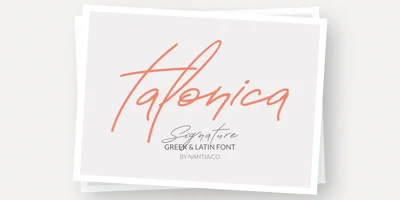
Talonica Font
Talonica Font is perfect for expressive design projects including editorial magazine layouts, contemporary art publications, creative agency branding, cultural festival promotions, modern literature covers, artistic portfolio presentations, innovative marketing campaigns, and dynamic social media graphics. This distinctive typeface excels in design studios, independent publishers, avant-garde fashion brands, creative workshops, and projects that celebrate artistic expression and contemporary visual communication.
What makes Talonica Font exciting is its sophisticated contemporary character that perfectly embodies the essence of modern artistic expression and editorial excellence. The font features refined letterforms with distinctive personality that reflect the balance between readability and creative flair found in premium publishing. Its thoughtful design elements capture the spirit of contemporary typography and cultural sophistication, making it perfect for projects that need to convey intelligence, creativity, and editorial authority. The carefully crafted character relationships create visual harmony while maintaining strong individual personality.
Talonica Font comes in multiple family variations including light, regular, medium, bold, and condensed styles. Each weight maintains the distinctive contemporary character while offering different levels of editorial presence and artistic impact. The font family includes expressive alternates, editorial ligatures, and contemporary variations that provide designers with comprehensive options for creating truly sophisticated and culturally resonant typographic compositions that celebrate modern communication.
Whether you're designing editorial branding, creating contemporary marketing materials, or developing artistic promotional graphics, Talonica Font provides the perfect typographic foundation for projects that celebrate modern expression and editorial excellence. This remarkable typeface transforms standard text into compelling expressions of contemporary sophistication and artistic intelligence. Download this exceptional font today and enhance your design projects with the refined elegance and modern appeal that captures the essence of contemporary culture and sophisticated visual communication.